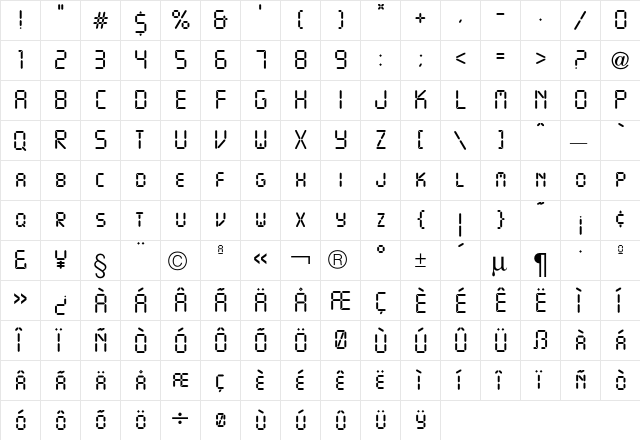
Digital ICG
Design Context for Digital Typeface
Digital channels digital-age aesthetics through its sharp, structured letterforms — ideal for brands that want to signal innovation.
Pro Tip: Use Digital in combination with a neutral sans for body text. Let it define the brand voice in headlines while keeping reading comfortable elsewhere.